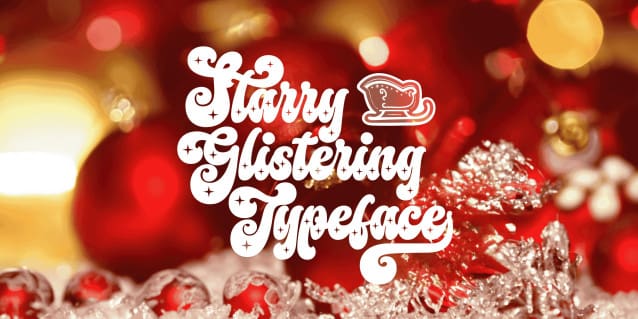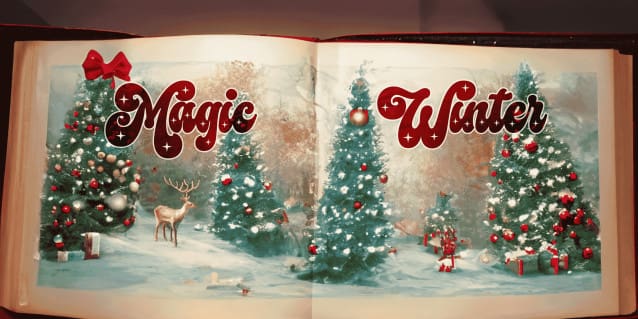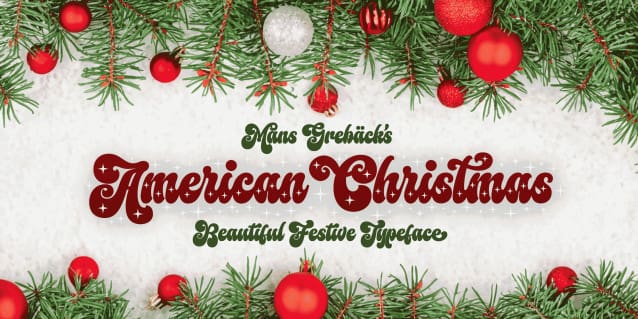
American Christmas Font is a funky and decorative season’s typeface that brings a festive touch to every word, with retro letters that dance joyously across the page.
Use parenthesis symbols () [] {} to make stars around any word.
Example: {Xmas}Songs
Use underscore _ after any word to make a swash.
Example: Santa_
Multiple underscores make longer tails.
Example: Yuletide____